A New Study Reveals The Major Effect Handwritten Menus Can Have On Your Mood
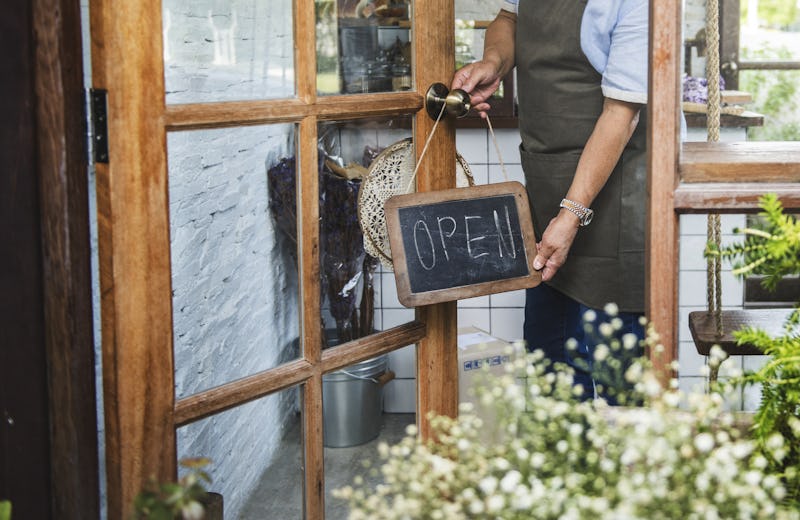
As much as going to restaurants is about getting to bask in the deliciousness of new and favorite foods, the ambience of the space you're dining in is a super important factor for a lot of us. Whether you're looking for a cozy spot to relax and enjoy your food in or an elegant dig to dress up for dinner for, it's a big deal. According to a study, one aspect of a restaurant's decor may affect you more than you think — among other things, handwritten fonts on menus may make you feel less lonely.
The study, titled "Love is in the menu," was spearheaded by Stephanie Liu, Assistant Professor of Consumer Sciences at The Ohio State University. So, how can a restaurant menu foster a sense of human connection and engagement? According to the research team, it's in the handwritten fonts. The researchers found that restaurants that opted for handwritten (versus machine-written) typeface generate more favorable attitudes toward the menu, perceived healthiness, and even social media engagement. "The results show that handwritten typeface creates a competitive advantage by conveying a sense of human touch, which subsequently induces the perception that love is symbolically imbued in the restaurant's offerings," explained researchers in the study's abstract. Who knew?
If you eat out a lot, you probably have felt endeared at one point or another (and even snapped a shot of) a pretty, creative handwritten menu. It definitely does give restaurants a cozy, human touch — and interestingly, the researchers reported that these positive effects occur only when the restaurant brand is health-focused. Maybe now you know why you keep coming back to that favorite juice bar or salad spot with the cute menus and atmosphere.
Handwritten menu typefaces can even function to make solo diners feel less lonely, suggests the study. "[Customers] feel that the restaurant put more effort into the design of this menu and they are getting this product to you with more care," said Liu. It's a pretty effective marketing technique, and the research explains that its definitely on the rise in the contemporary restaurant industry. The most interesting part about all of this is that most of us don't consciously register any of this while we're eating out or stopping to pick up food from a restaurant. “As a marketing strategy, customers are just subconsciously processing information, and they feel that human touch in the letters on the menu,” Liu explained. If you're like me and have never even considered this angle before now, you're probably realizing that the process actually makes a lot of sense.
The abstract for "Love is in the menu" points out that their findings could point to expanded strategies for branding, visual design, and menu psychology. It's so cool to think about how restaurants are really dialing in to these super subtle factors — gone are the days that most food or drink spots didn't acknowledge the many connotations that could come with something as seemingly standard as a menu. Next time you go out to eat, check out what kind of atmosphere the menu is trying to give off: if you like it, it might just be the reason that you keep coming back there.